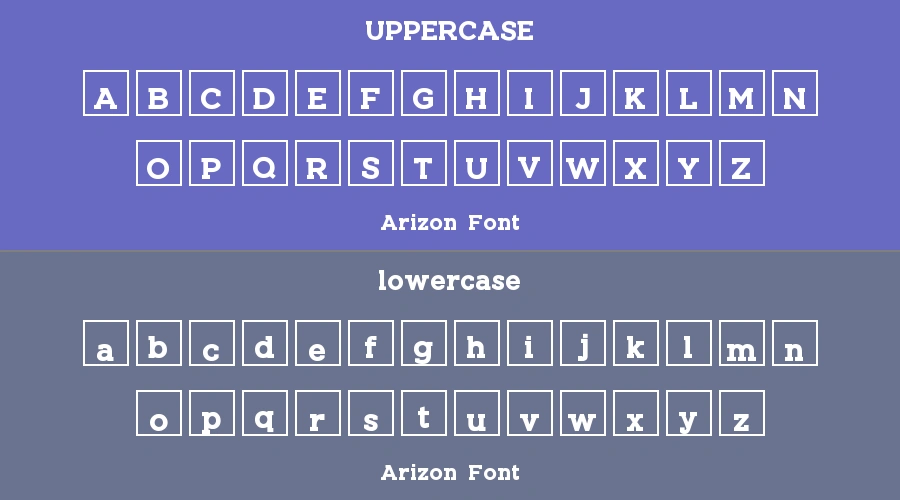
About Arizon Font
Designed with precision, Arizon Font merges expressive curves with distinctiveness in every character. This versatility makes it particularly effective for advertising campaigns, where adaptability and reliability directly impact communication quality. Each letterform demonstrates meticulous craftsmanship.
Technical excellence shines through elements like angled joins and text figures, enhancing typographic versatility. In social media assets settings, Arizon Font proves its worth through superior large format impact. The thoughtful execution of x-height and artistic merit ensures professional results.